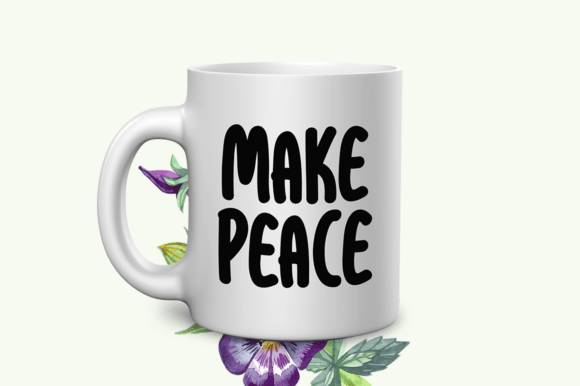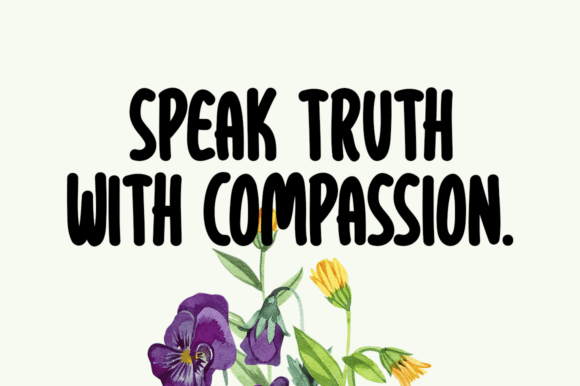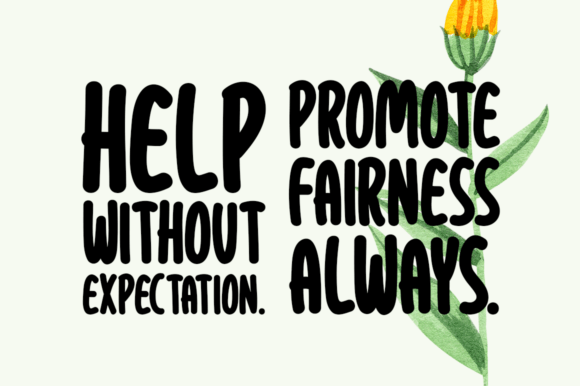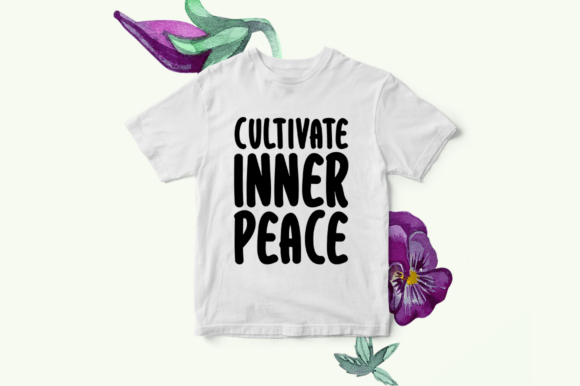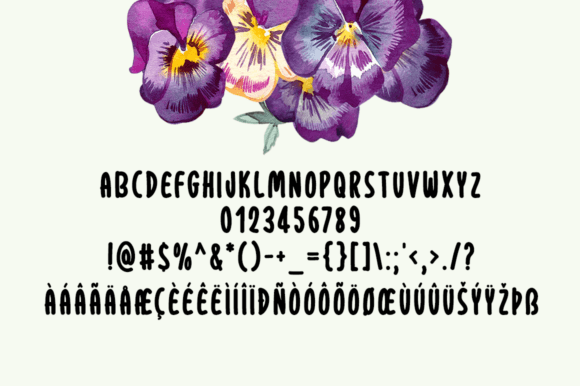
The Perfect Match for Your Next Design Project
You know that feeling when you’re brainstorming ideas for a new project and suddenly, everything clicks into place? The concept, the colors, the typography – it all comes together in a beautiful, cohesive package. For designers, this moment is often the result of finding the perfect font to bring their vision to life. And for those looking to make a lasting impression, Be Good Font is a striking handwritten font that combines boldness with a personal, authentic style.
Be Good Font is more than just a font – it’s a statement piece that adds a creative, confident vibe to any project. Whether you’re designing logos, stationery, or digital media, this versatile font is the perfect choice for designers looking to elevate their work and leave a lasting impression. By incorporating Be Good Font into your next project, you’ll be able to tap into its unique energy and create something truly remarkable.
Be Good Font Key Features
- Size: The font family includes 8 styles, ranging from Thin to Black, each with a unique character and versatility in design.
- Unique Characteristics: This font features a modern, sans-serif design with subtle rounded edges, making it perfect for contemporary and minimalist designs.
- Font Metrics: The font family has been carefully crafted to ensure consistent metrics and kerning across all styles, ensuring a professional and polished appearance.
Be Good Font Review
I’ve had the chance to work with the Be Good Font, and I have mixed feelings about it. ✨ On the positive side, it’s a solid, modern sans-serif font that’s perfect for digital projects. The font is well-suited for headings and body text, and it’s highly legible on various screen sizes.
Here are some specific things I like about Be Good Font:
- High legibility: The font is clear and easy to read, even at small font sizes.
- Neutral tone: Be Good Font has a neutral tone that works well with a variety of brand styles.
- Support for various languages: The font includes support for multiple languages, making it a great choice for international projects.
- Limited personality: While Be Good Font is solid and modern, it doesn’t have a strong personality or uniqueness.
- Not ideal for print: The font may not be the best choice for print projects, as it can appear too digital and lacking in texture.
- Not as customizable as some other fonts: Be Good Font is a commercial font, and while it’s highly versatile, it may not offer the same level of customization as some other fonts.
Overall, I think Be Good Font is a solid choice for digital projects, but it may not be the best fit for every project or client. With its high legibility and neutral tone, it’s a great choice for a wide range of applications, but it may not offer the level of personality or customization that some designers are looking for.
Be Good Font is a versatile font that can be used for a variety of purposes, including:
- Brand logos and typography
- Food and beverage labels
- Event signage and graphics